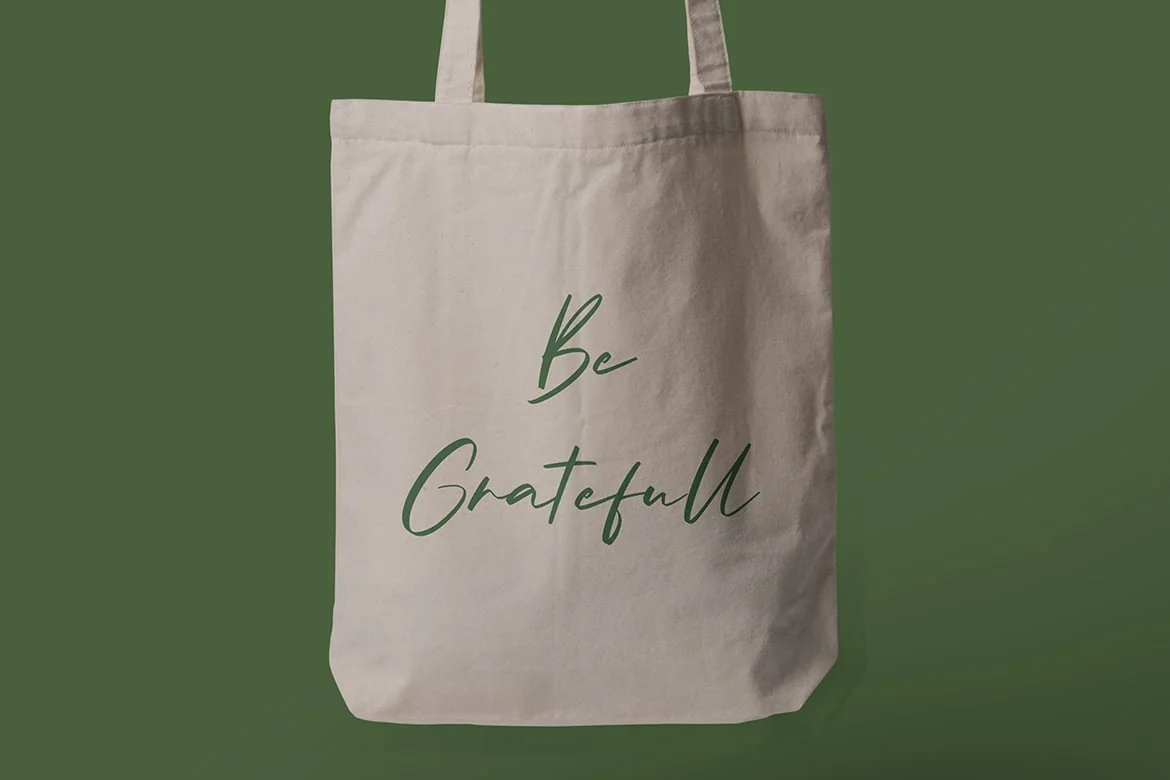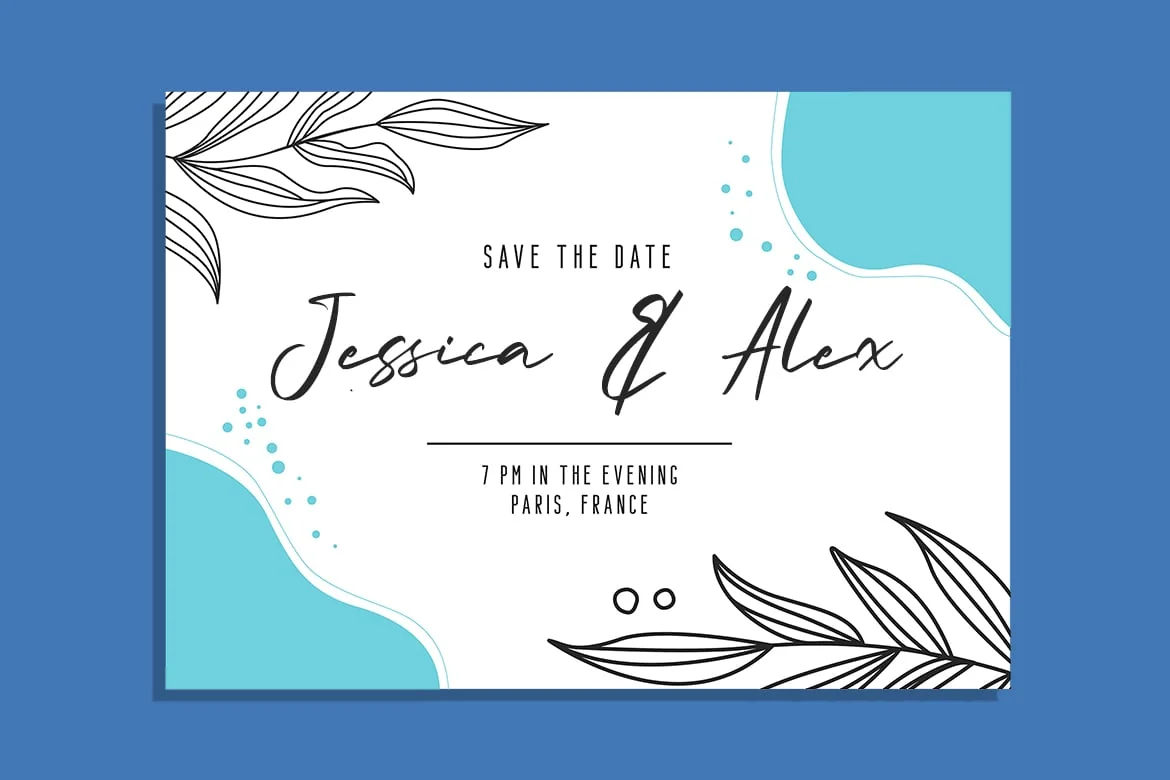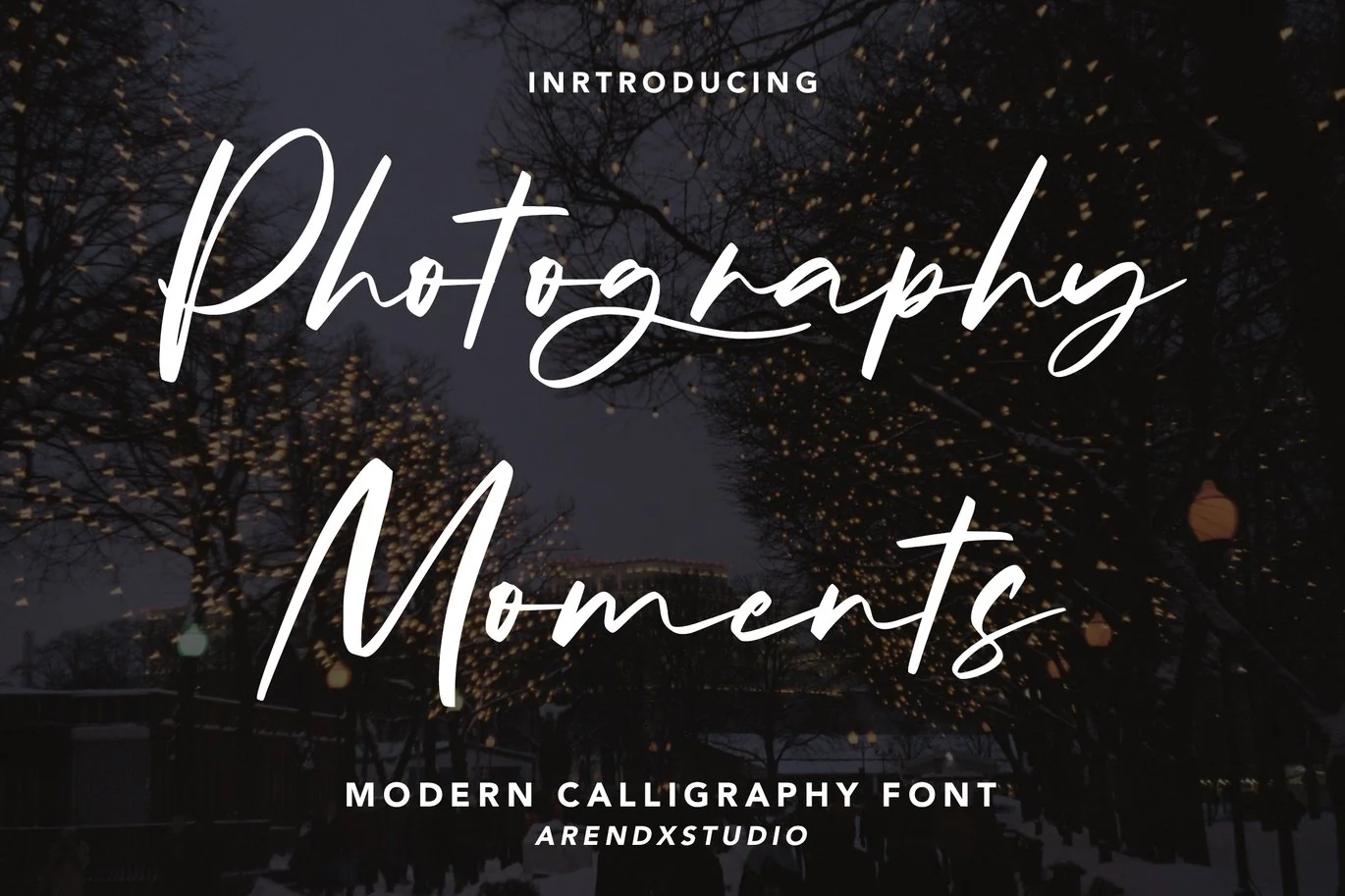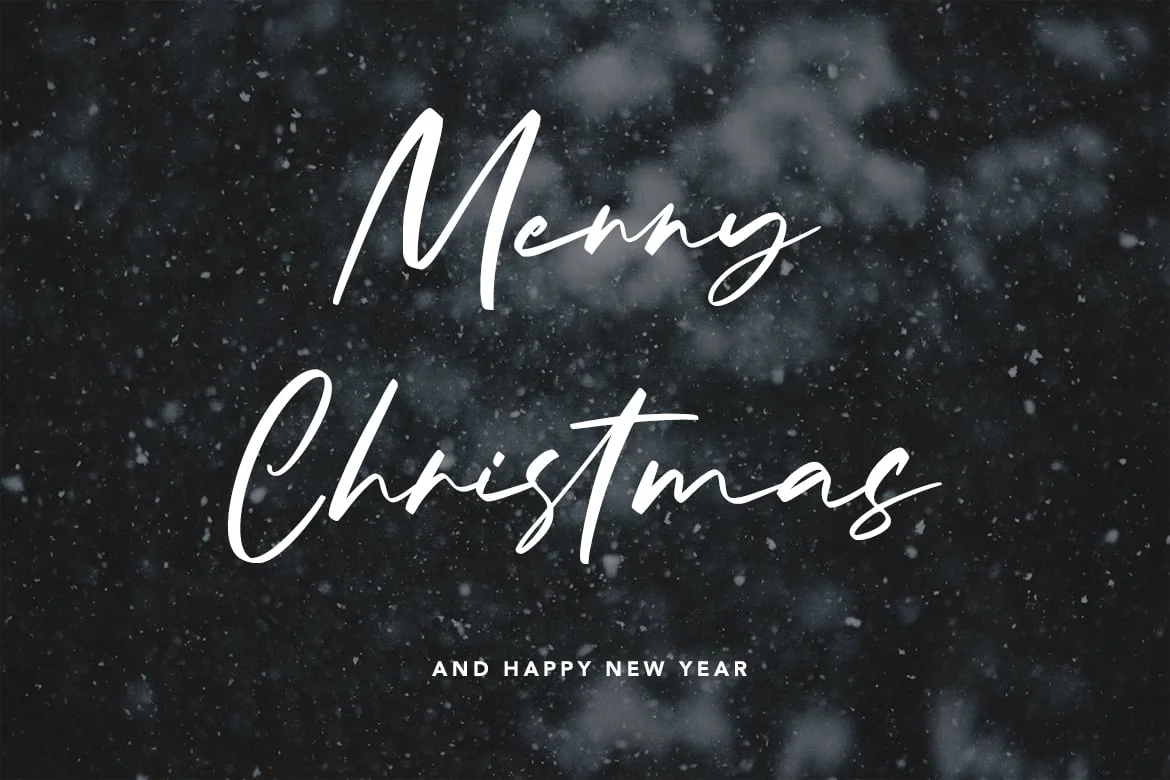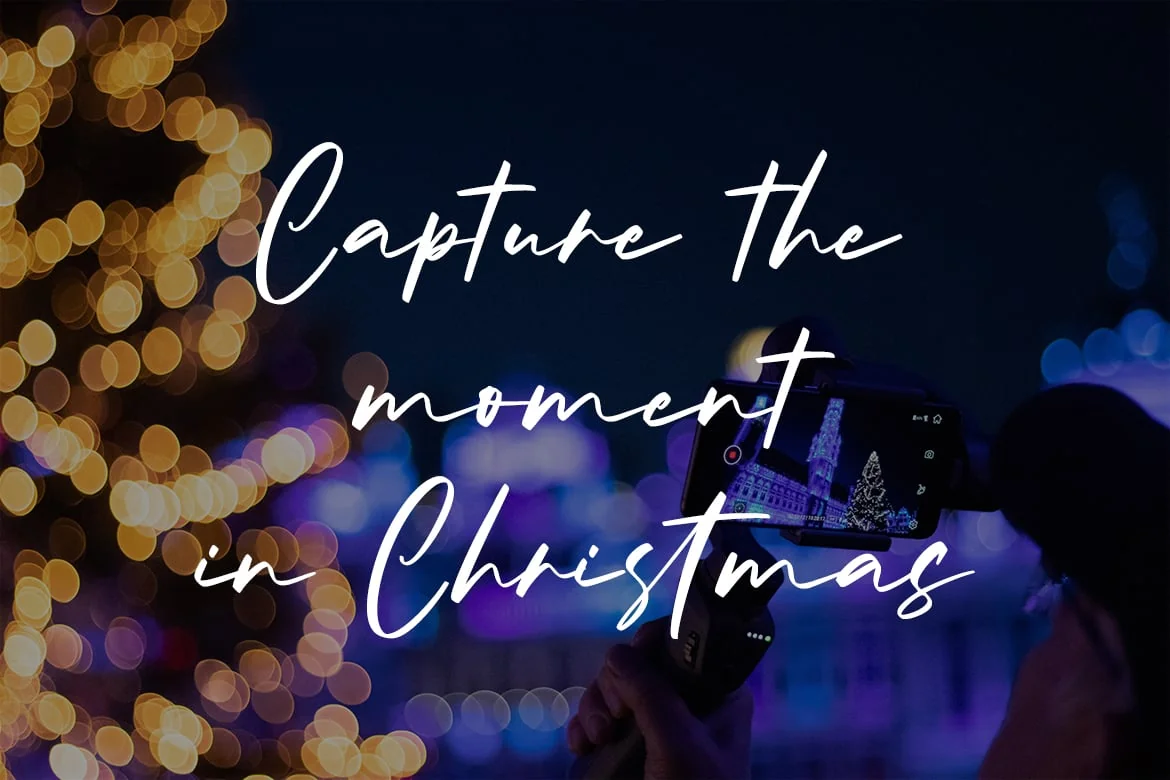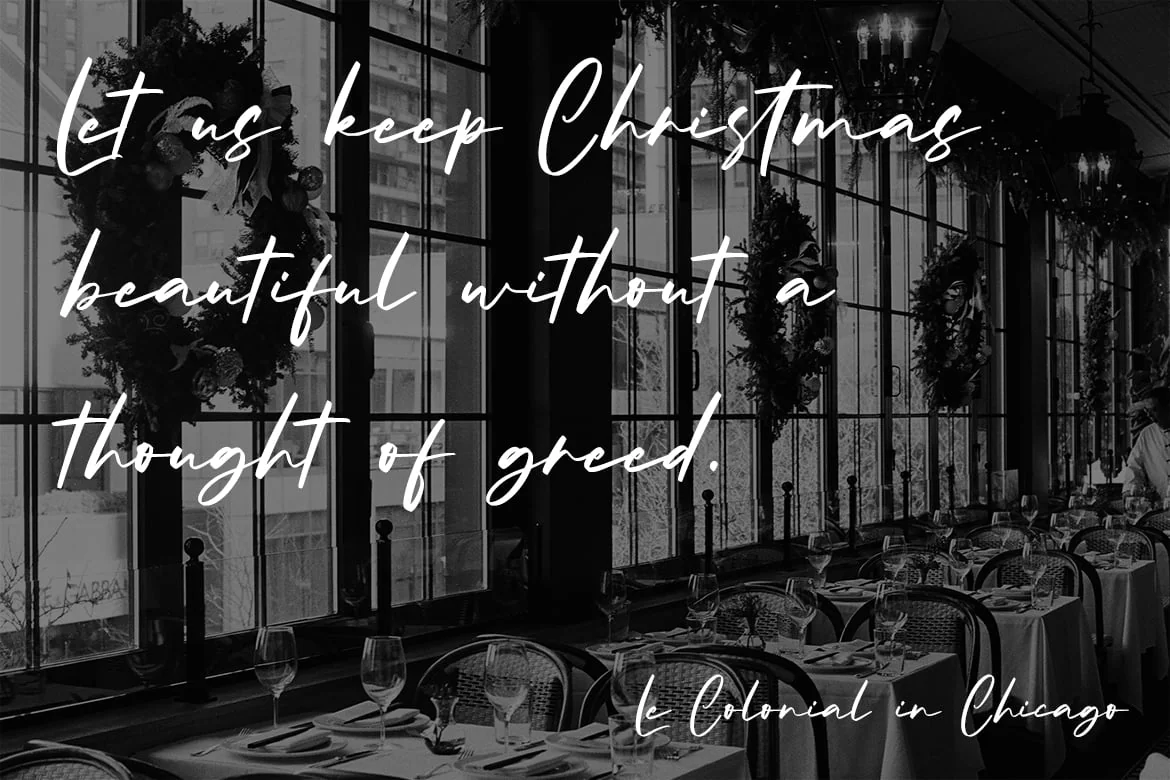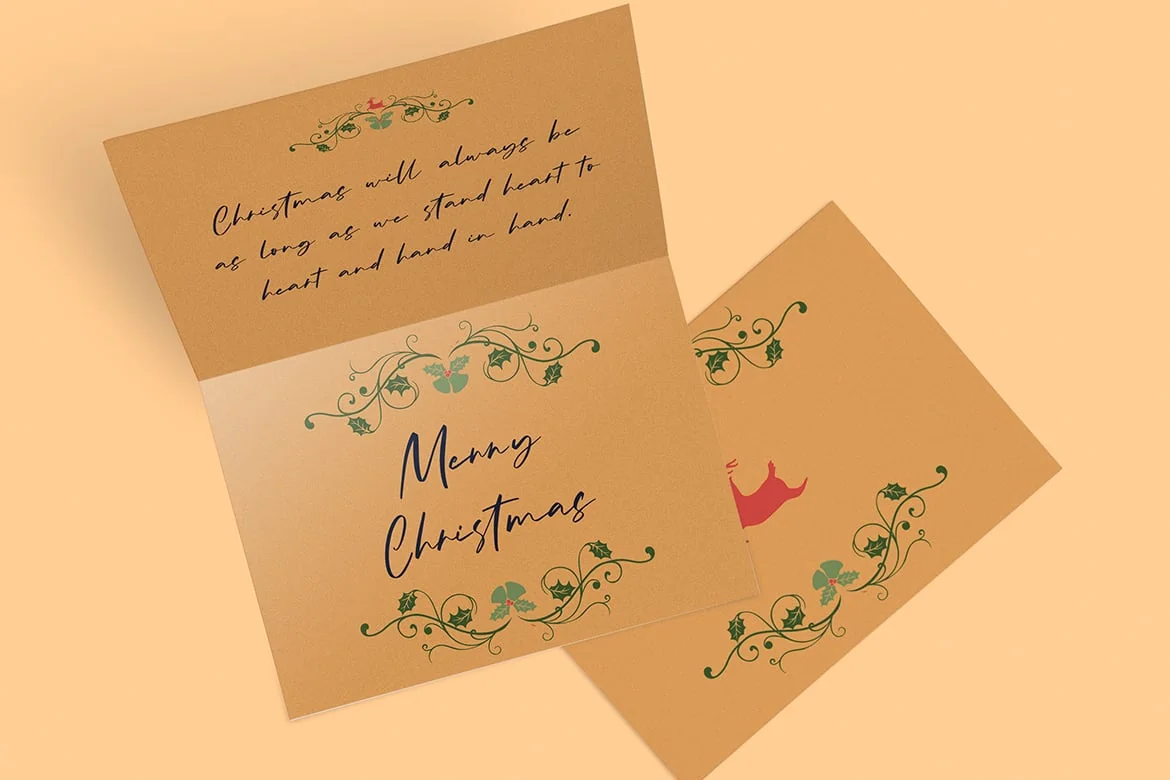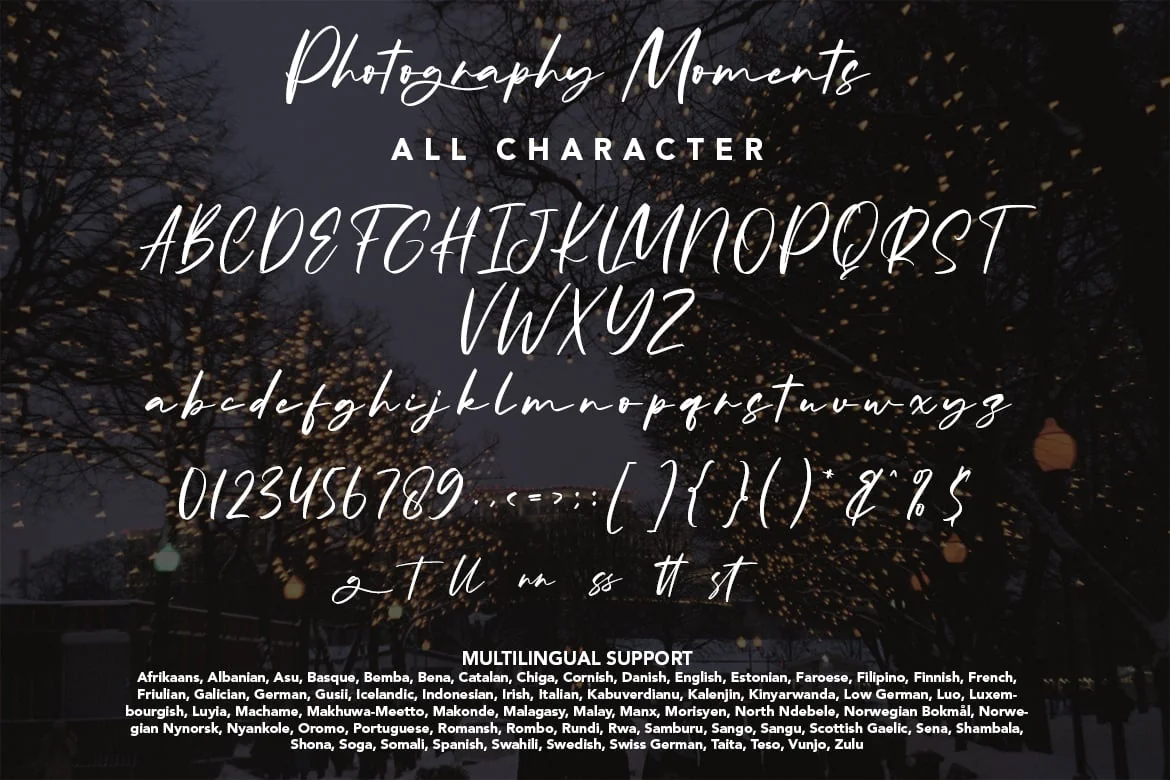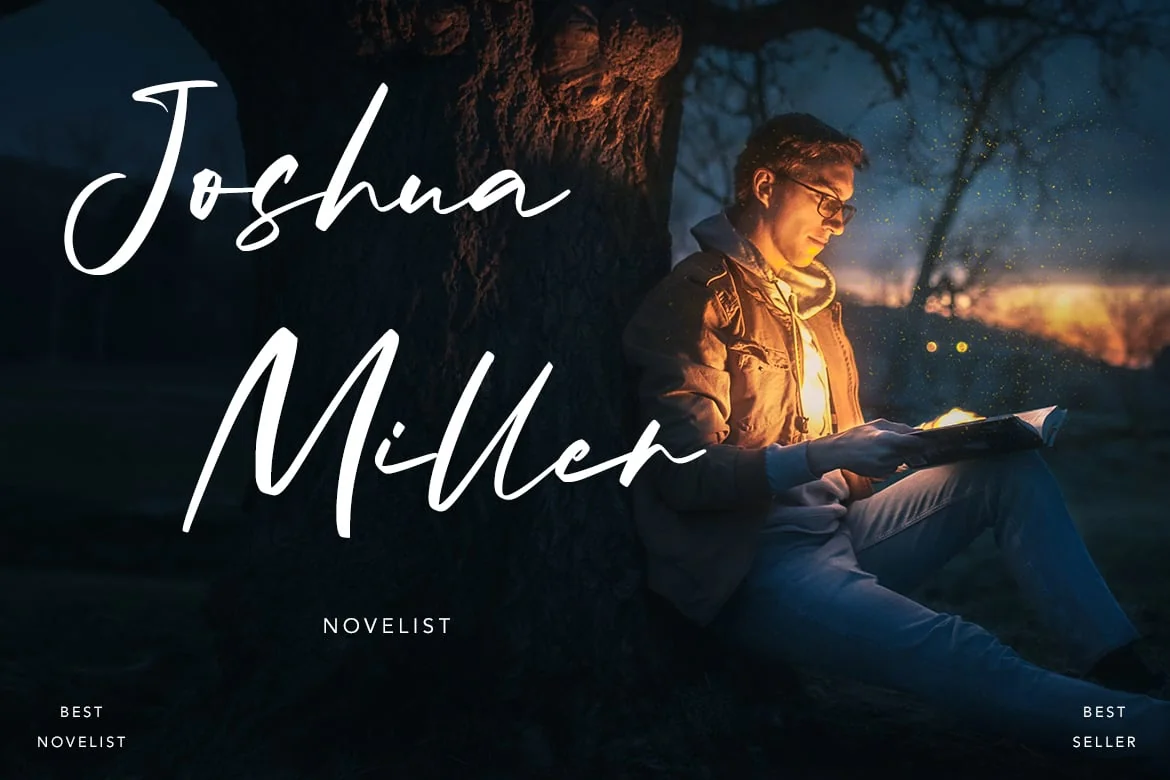
Photography Moments – Modern Calligraphy Font
Photography Moments – Modern Calligraphy Font with sharp and beautiful letters that create fonts that are modern, trendy and elegant. Came with opentype features such stylistic alternates, stylistic sets & ligatures good for logotype, poster, badge, book cover, tshirt design, packaging and any more.
Features : • Character Set A-Z • Numerals & Punctuations (OpenType Standard) • Accents (Multilingual characters) • Ligature • Alternate